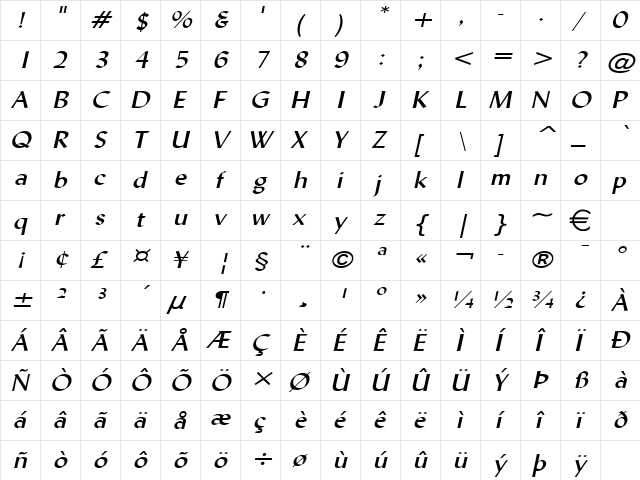
LyndaWide Italic Font Preview
LyndaWide Italic
LyndaWide Italic Font Details
Design Context for LyndaWide Typeface
LyndaWide takes a measured approach to typography — its balanced proportions and neutral character make it a reliable workhorse for both digital and print work. Its italic angle brings a sense of urgency and motion to the letterforms.